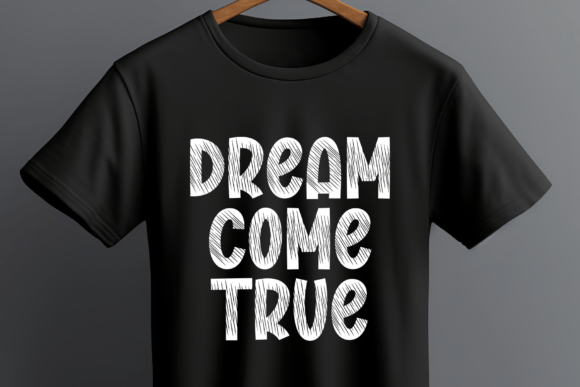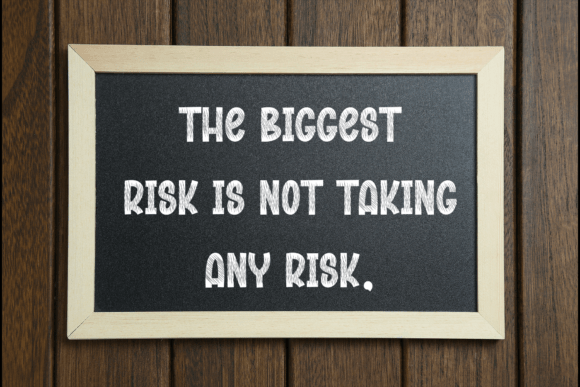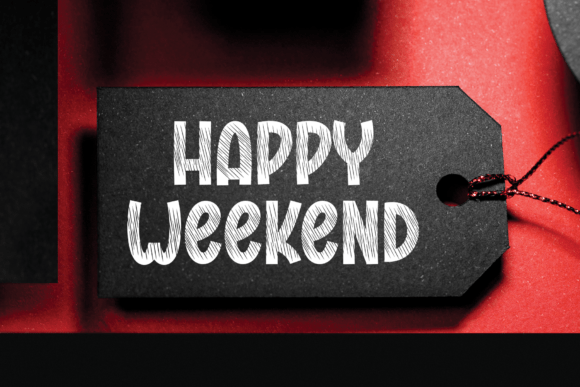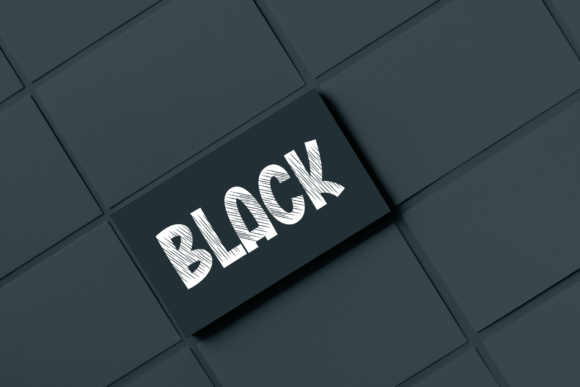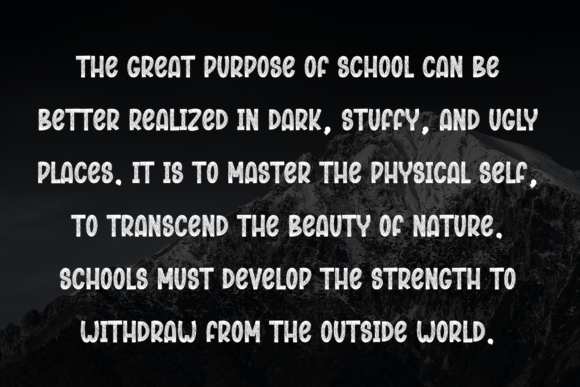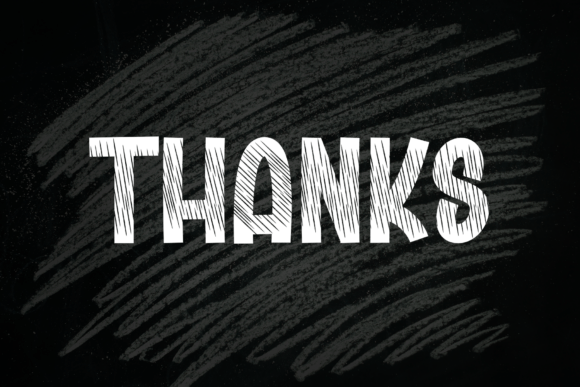
The Perfect Brushstroke: Unlocking the Charm of Chalk Scratches Font
Remember the thrill of scribbling on a chalkboard as a kid, watching the vibrant colors dance across the surface with every stroke? That same excitement is captured in the Chalk Scratches Font, a bold display typeface that brings the tactile feel of hand-drawn chalk to your designs.
This energetic crosshatch style font is perfect for adding a personal touch to school-themed materials, food menus, children’s books, and DIY crafts. Its sketched effect gives instant character and movement to any design, making it a favorite among designers looking to add authenticity and flair to their projects.
Whether you’re creating back-to-school vibes or rustic café aesthetics, the Chalk Scratches Font is a valuable addition to your design toolkit, offering a raw and tactile personality that’s sure to leave a lasting impression.
Key Features of Chalk Scratches Font
- Unique Characteristics: The font features a unique, hand-drawn style that resembles chalk scratches on a blackboard, giving it a nostalgic and educational feel.
Chalk Scratches Font Review
As a designer, I was excited to try out the Chalk Scratches Font. I’ve always been drawn to unique and quirky fonts that add a touch of personality to a design. In this review, I’ll share my honest thoughts on what works well, what doesn’t, and my overall impression.
- Uniqueness: Chalk Scratches Font is definitely one-of-a-kind, with its handwritten feel and imperfections.
- Emotional Connection: The font has a warm, nostalgic vibe that can evoke feelings of childhood memories and creativity.
- Legibility: Despite its quirks, the font is surprisingly legible, making it suitable for a wide range of applications.
Limitsations ⚠️
- Overuse: The font’s uniqueness can also be a double-edged sword. If overused, it can become gimmicky and lose its impact.
- Difficulty in Reproduction: The font’s imperfections can make it challenging to reproduce consistently, especially in digital formats.
Overall, I think Chalk Scratches Font is a great addition to any designer’s toolkit, but it should be used judiciously. Its unique personality can add a lot of character to a design, but it’s essential to balance it with more traditional fonts to avoid overwhelming the reader.
Chalk Scratches Font Practical Application Guide
Getting the Most Out of Chalk Scratches Font
To get the most out of Chalk Scratches font, use it for designs that require a distressed or vintage look. Pair it with bold colors and textures to create a unique and eye-catching visual identity. Experiment with different font sizes and styles to add depth and interest to your design.
Chalk Scratches font is commonly used for:
- Event invitations and promotional materials
- Photography and photo editing
- Graphic design and digital art
Alternatives to Chalk Scratches Font for Designers
Pacifico is a beautiful, elegant script font that resembles handwriting. It’s perfect for creating a warm and inviting atmosphere in designs, such as wedding invitations, menus, or quotes. Pacifico is more refined and sophisticated than Chalk Scratches Font, making it suitable for high-end designs.